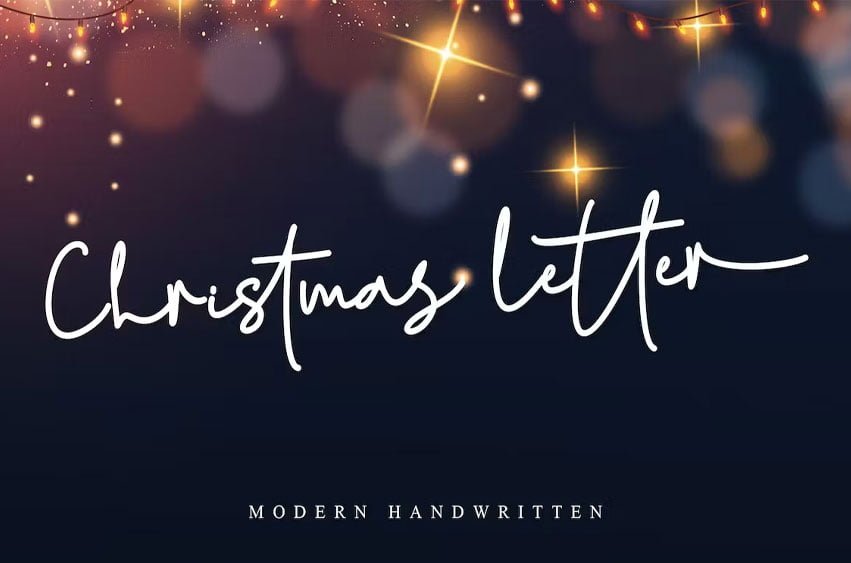
Christmas letter Font is a stunning monoline-style script font with authentic and casual vibes. It looks beautiful on a variety of designs requiring a personalized style, such as wedding invitations, thank you cards, weddings, greeting cards, logos and so on. Christmas letter is PUA encoded which means you can access all of the glyphs and swashes with ease!
- Support multilingual; ä ö ü Ä Ö Ü ß ¿ ¡
- lowercase and uppercase letters
- Ligature & Swash